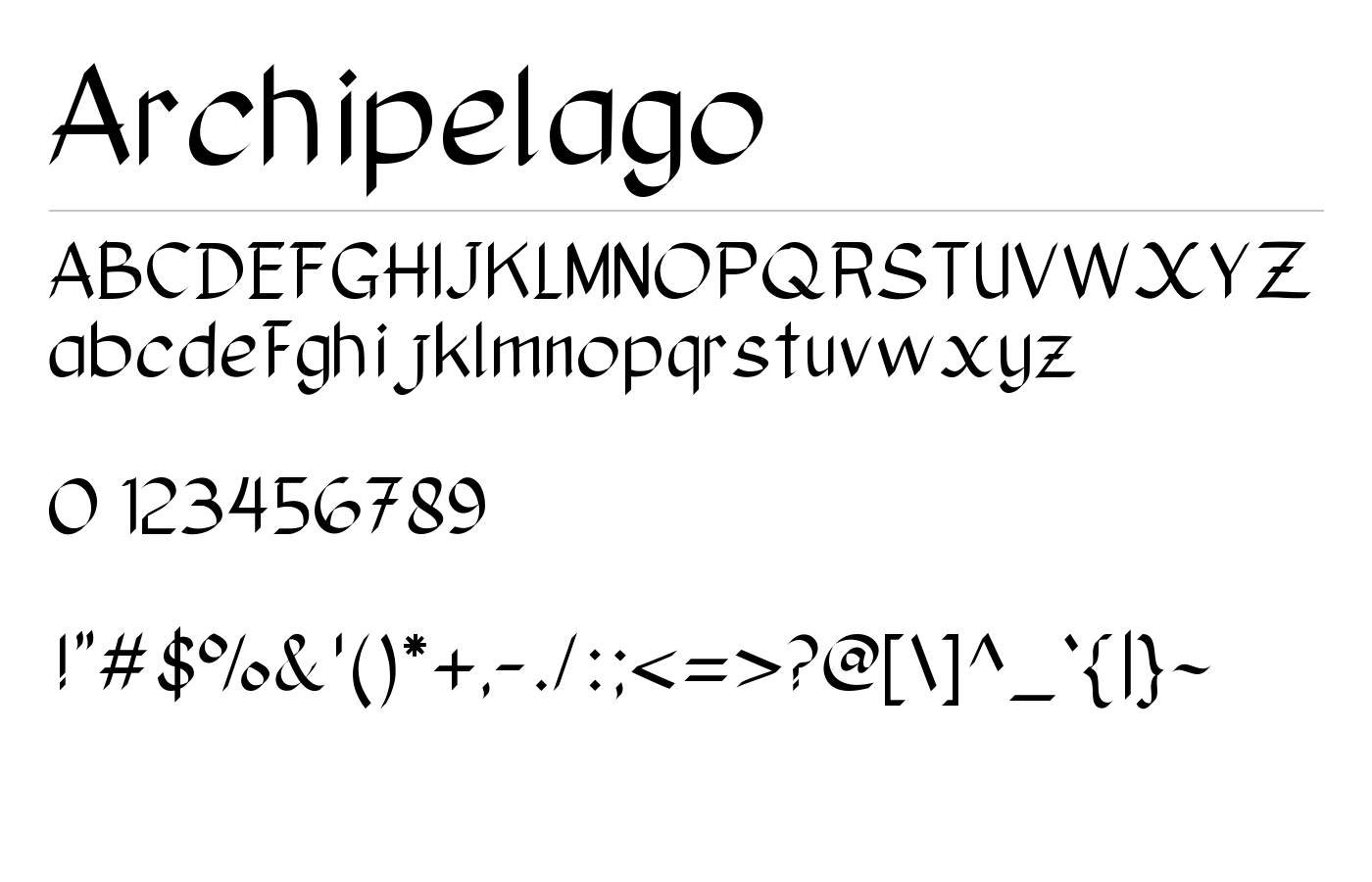
Archipelago is a distinctive serif typeface that combines sharp, angular strokes with a slightly condensed structure, giving it a modern yet mysterious feel. Its high contrast between thick and thin lines, along with unique letterforms like the pointed terminals and stylized curves, make it ideal for creative branding, editorial headlines, or display use where a bold, artistic impression is desired. This font works especially well for projects seeking an elegant but unconventional look that stands out with a subtle gothic or fantasy-inspired vibe.
Archipelago Font
About Archipelago Font